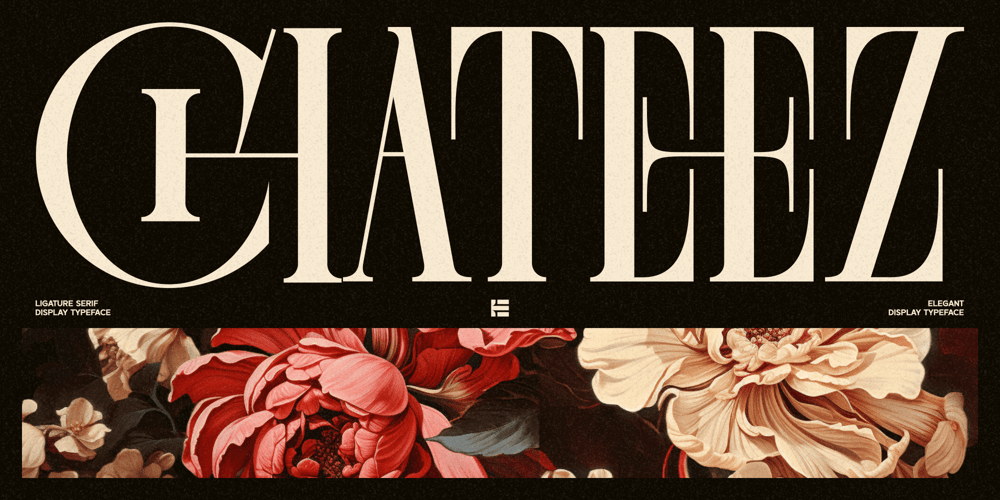
Chateez Font Family was designed by Fajar Ramadan and published by Eotype. Chateez contains 1 styles and family package options. Chateez is a new condense font that is elegant and has a luxury look. This unique font is perfect for creating beautiful logotypes, stunning magazine designs and more. This font can be your solution in completing projects that are equipped with various alternate and ligature collections.